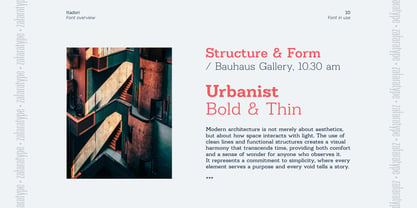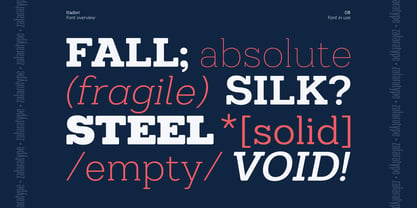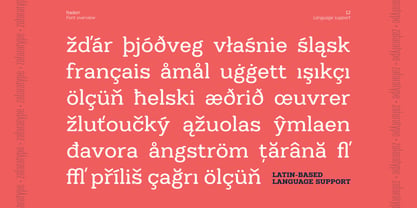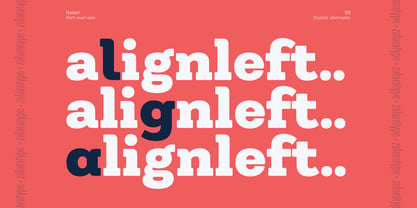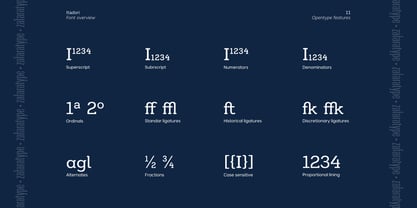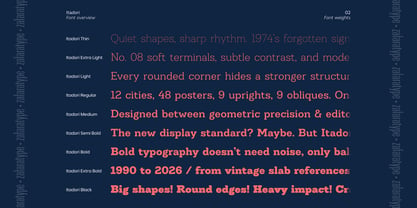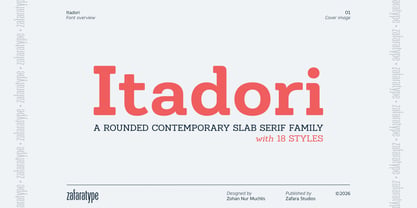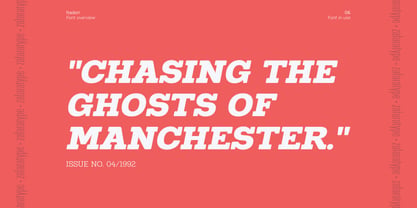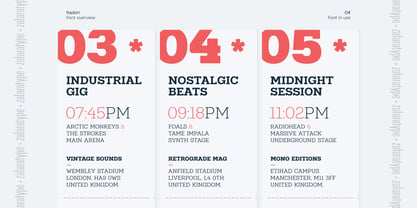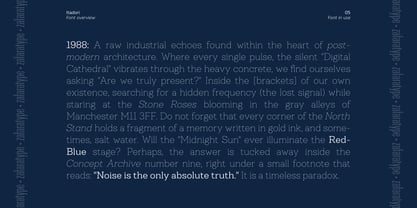
Itadori
The Itadori Font Family was designed by Zohan Nur Muchlis and published by Zafara Studios. Itadori contains 18 styles and family package options. More about this family
Itadori is a rounded contemporary slab serif family designed to bring together bold structure and soft personality in a clean modern form. With its sturdy slab serifs, smooth curves, and balanced proportions, Itadori delivers a distinctive look that feels strong, friendly, and versatile at the same time.
Its rounded construction gives the typeface a warm and approachable character while still maintaining the confident presence of a slab serif. This balance makes Itadori highly flexible for a wide range of design purposes, from branding, packaging, editorial layouts, and advertising to posters, social media graphics, and modern visual identities.
The family includes 18 styles, ranging from Thin to Black with matching italics, offering a complete typographic system for both subtle hierarchy and bold visual impact. Each style is carefully crafted to maintain consistency, readability, and rhythm across different weights and applications.
With 513 glyphs and extensive Latin Extended language support, Itadori is built for multilingual typography and supports a wide range of Western, Central, and Eastern European languages. This makes it suitable for international branding projects and global communication needs.
Modern yet approachable, expressive yet functional, Itadori is designed to stand out in contemporary creative work while remaining highly readable and adaptable across both display and editorial use.